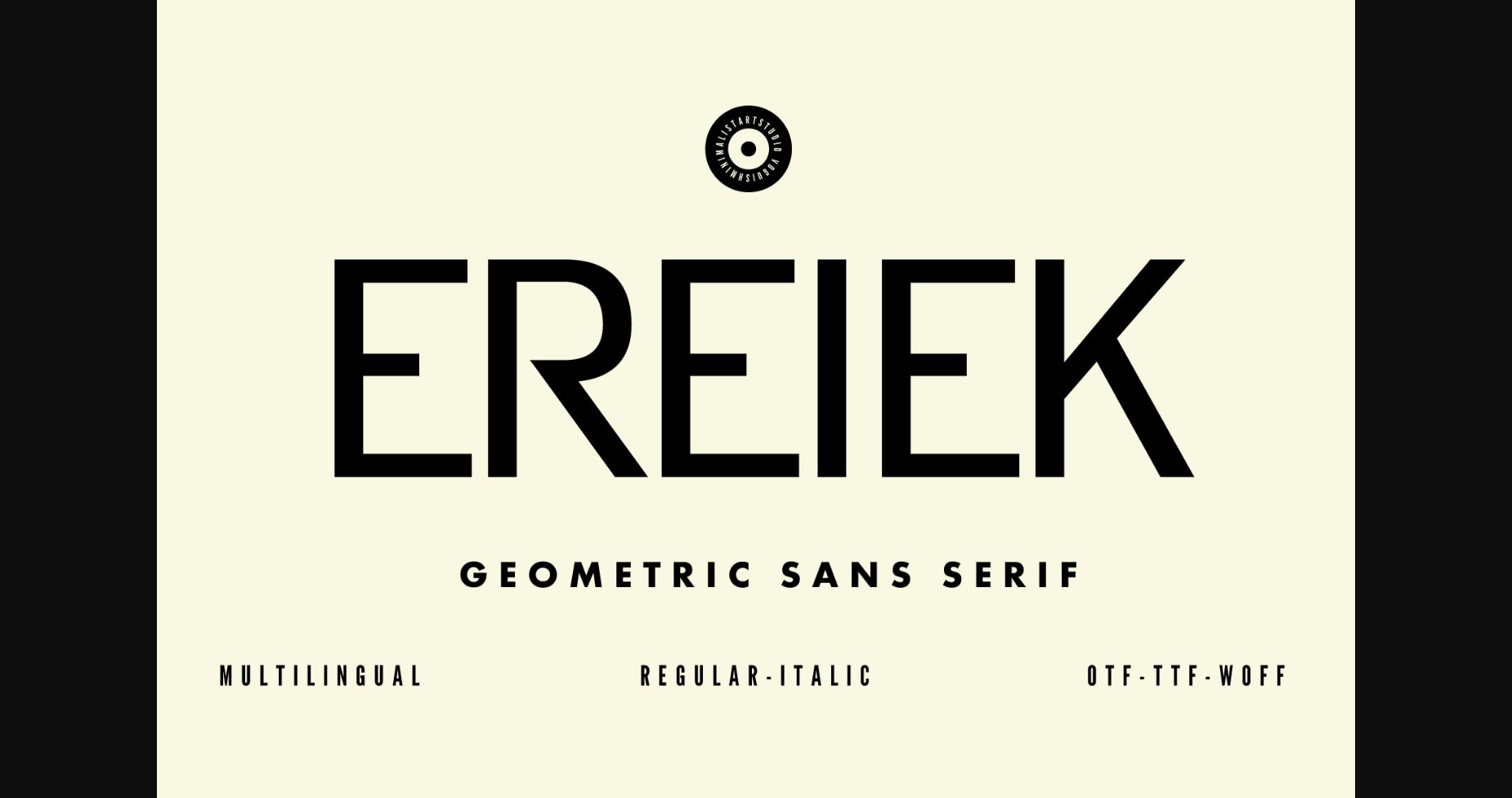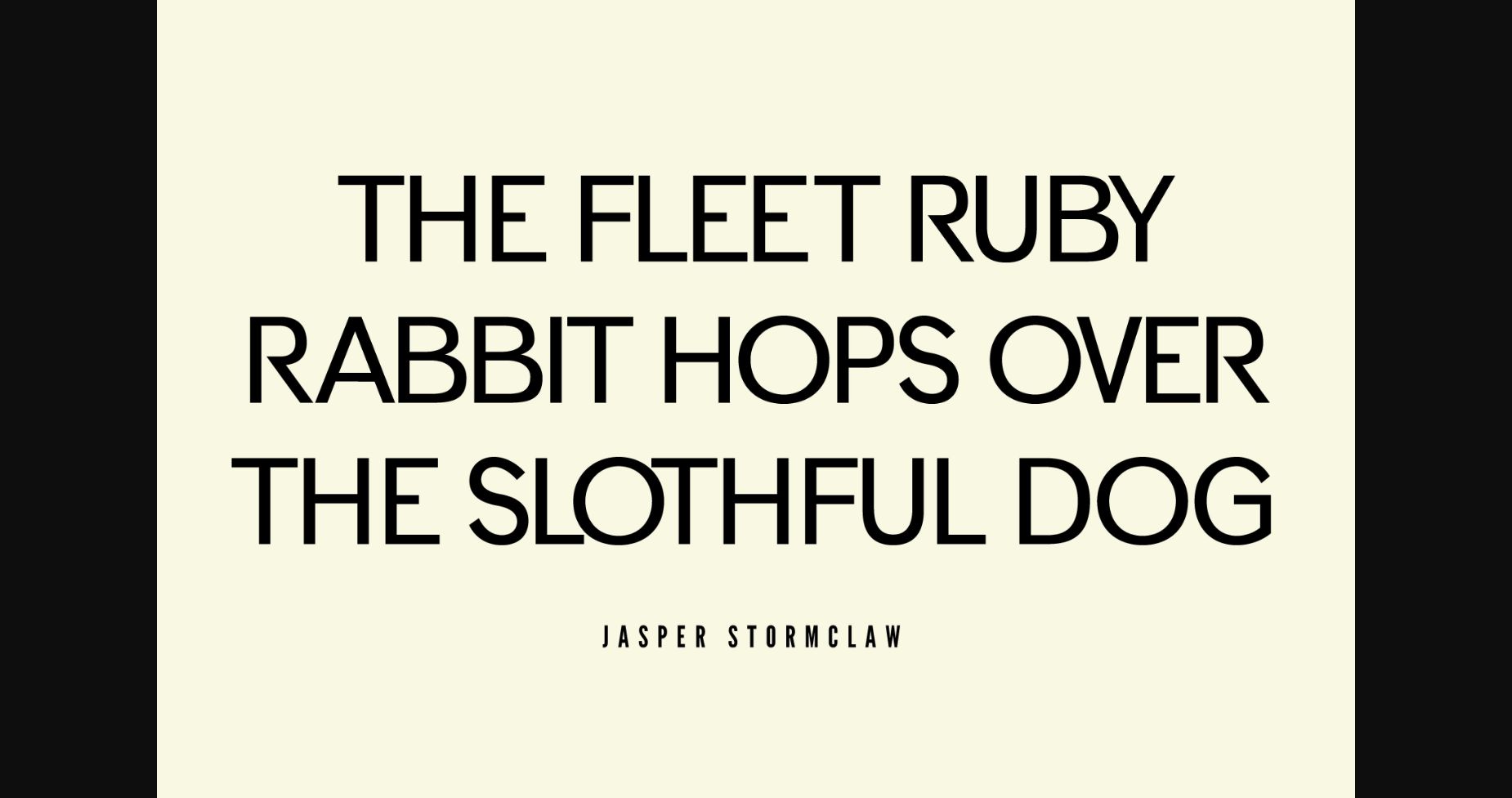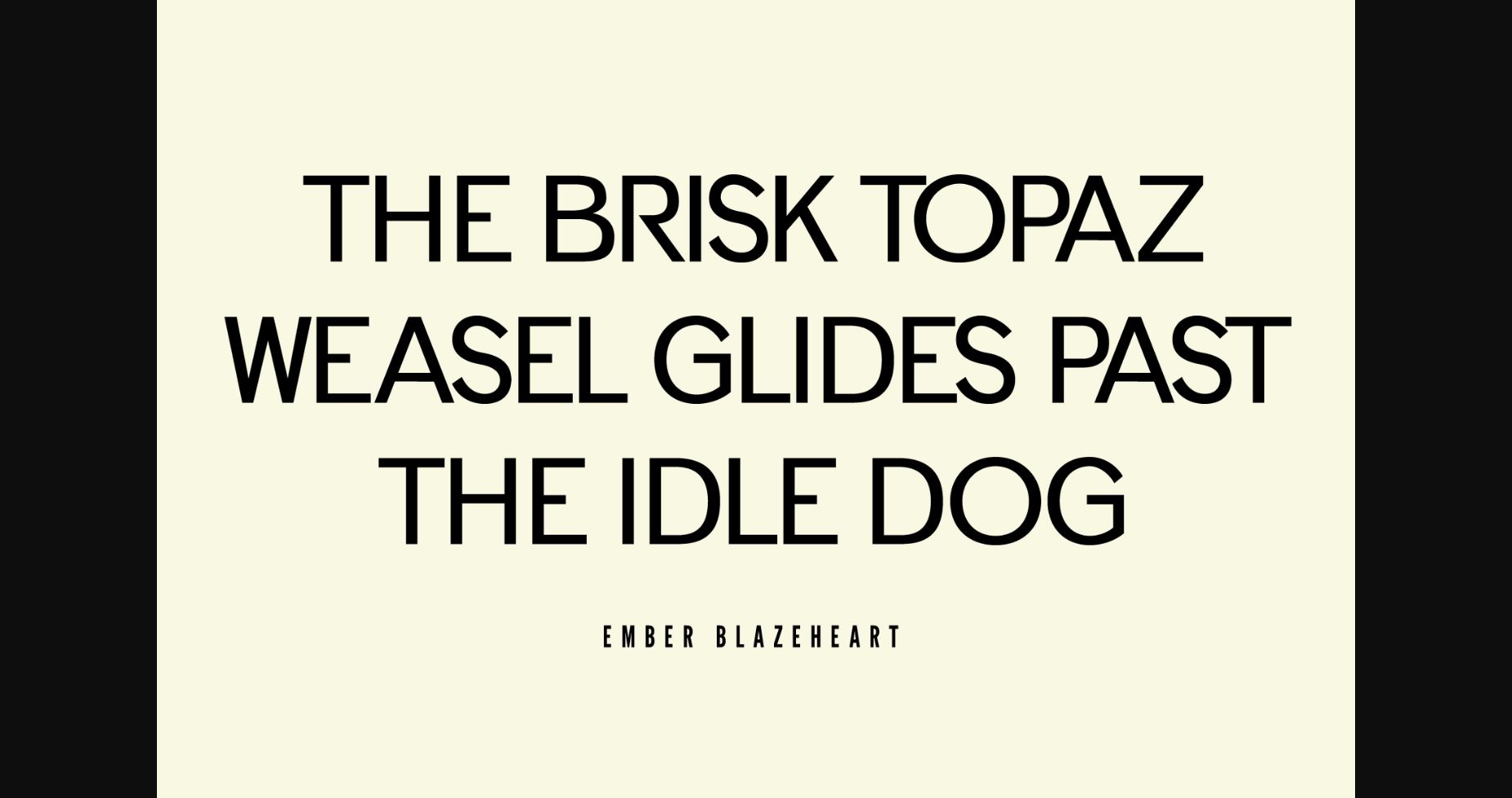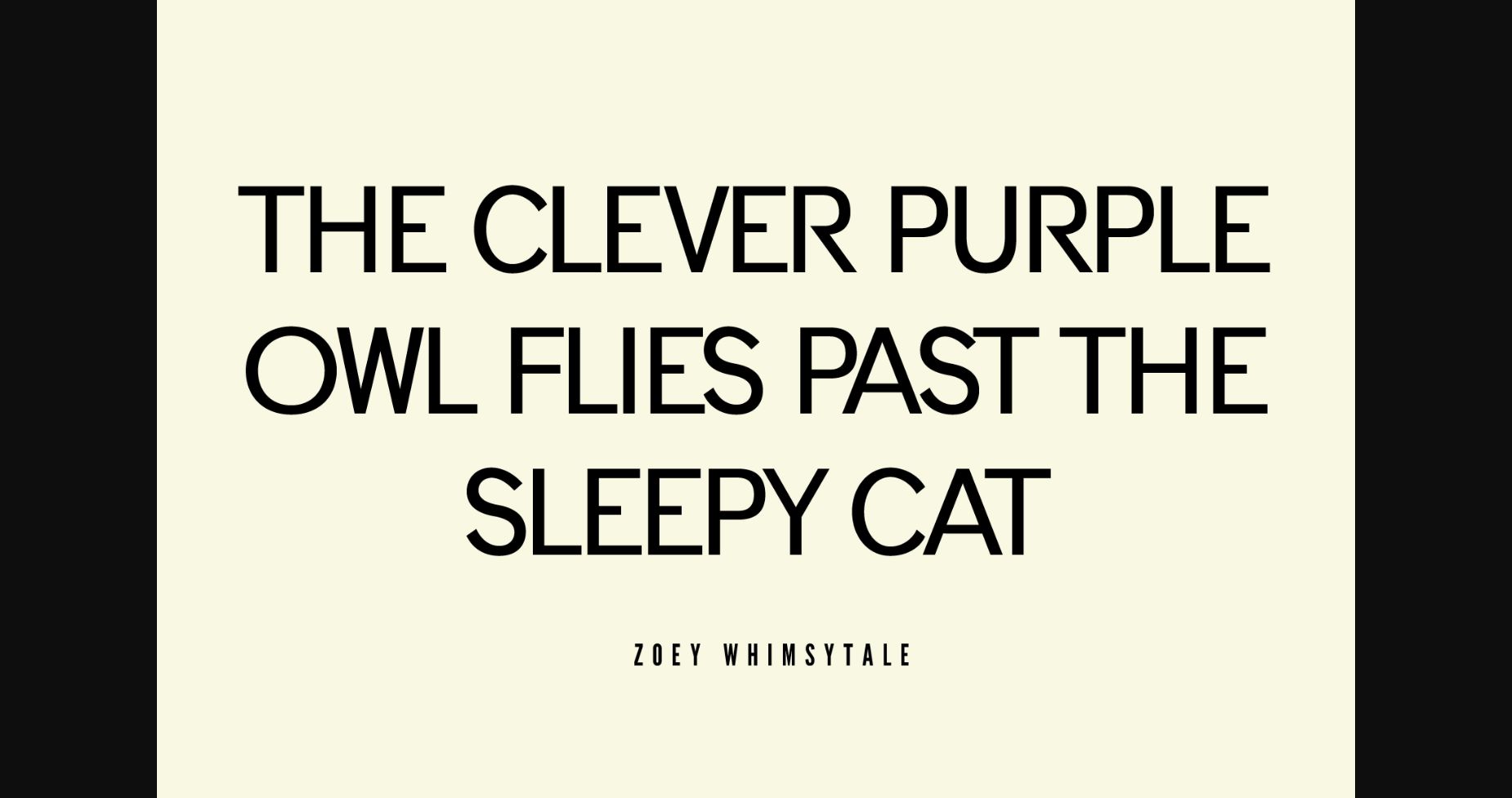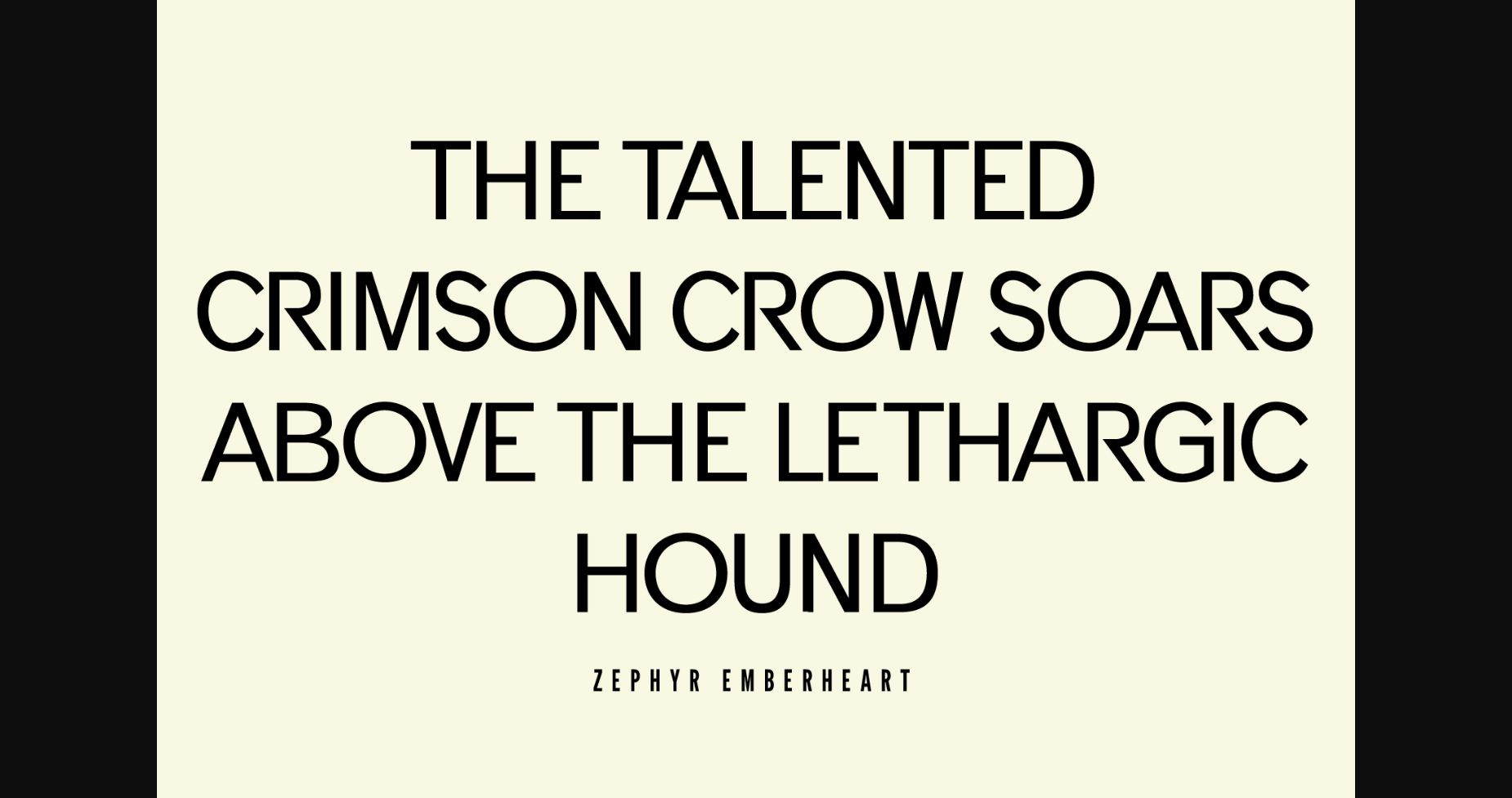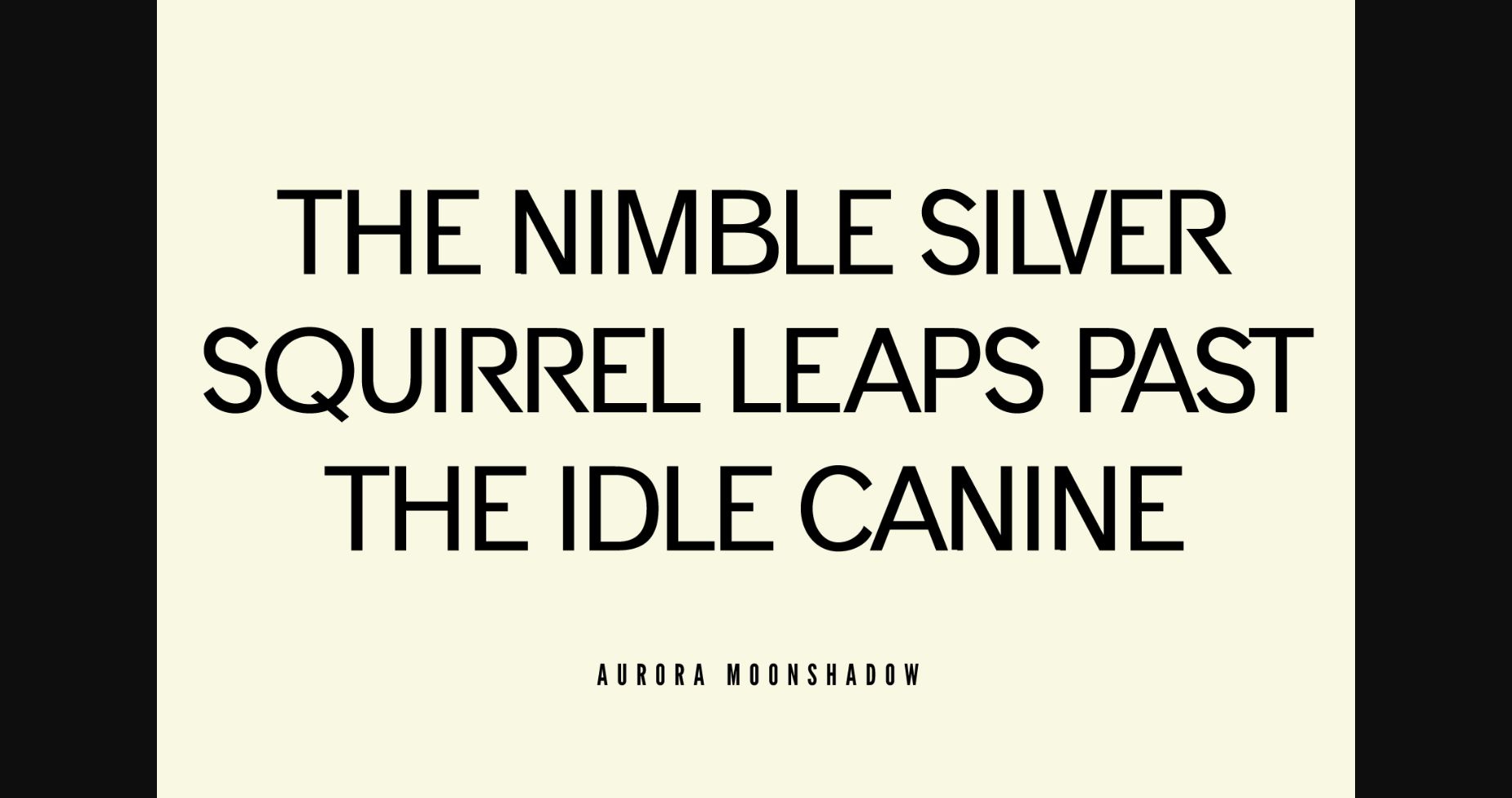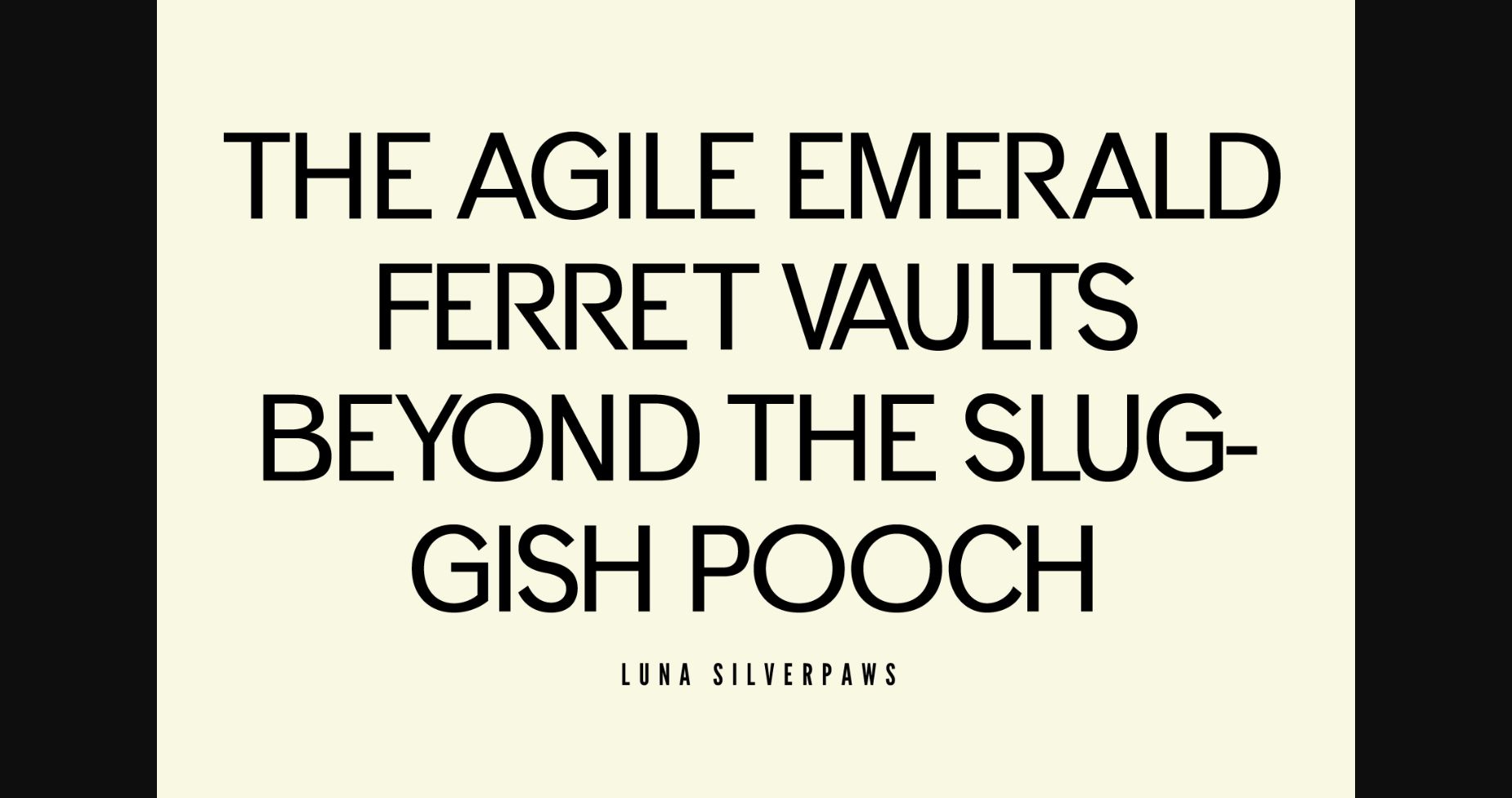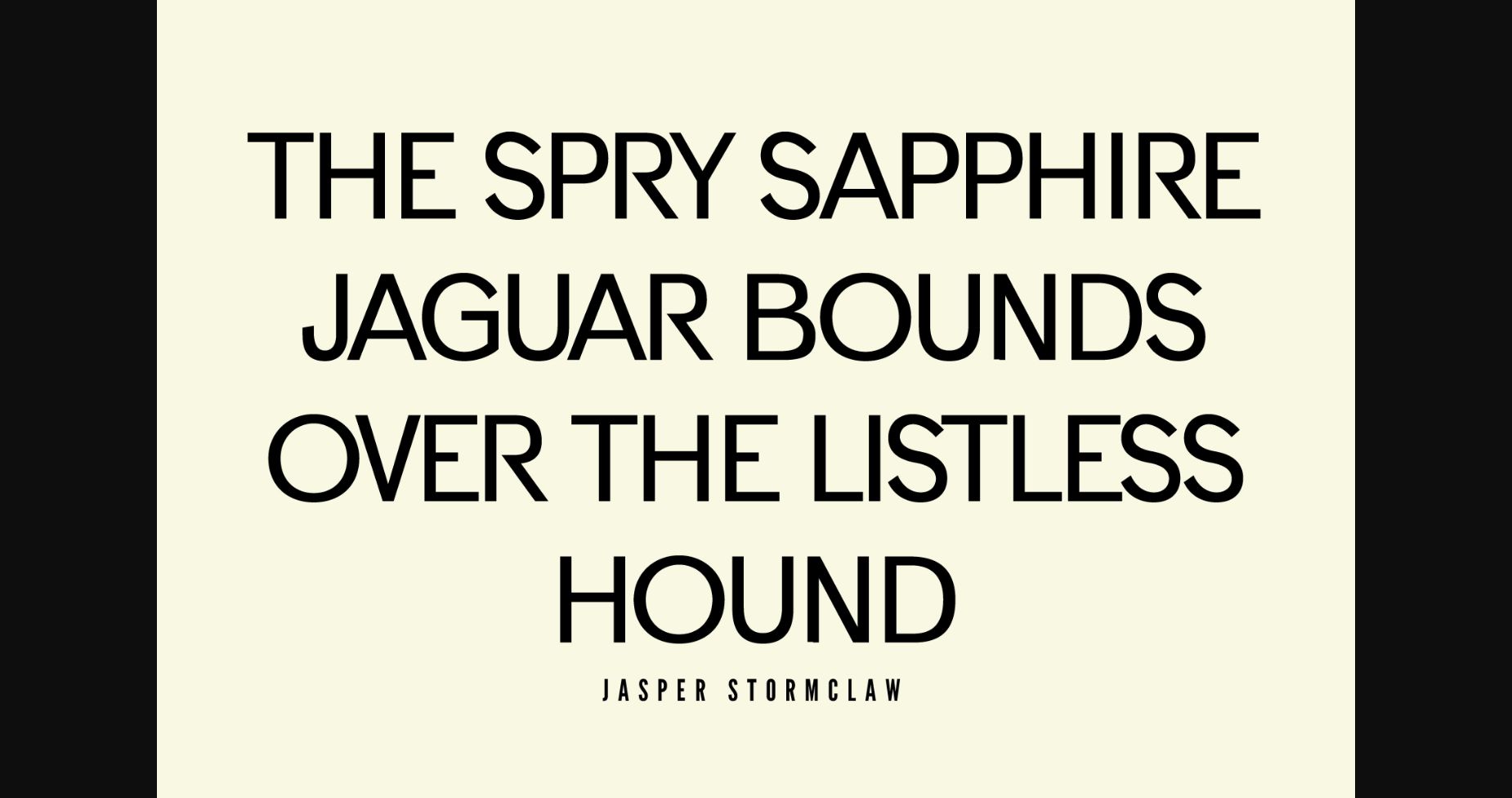
Ereiek Font
About Ereiek Font
Ereiek is a minimalist, chic, and modern geometric sans serif typeface. With clean lines, balanced proportions, and versatile styles, it is perfect for logos, posters, and websites.